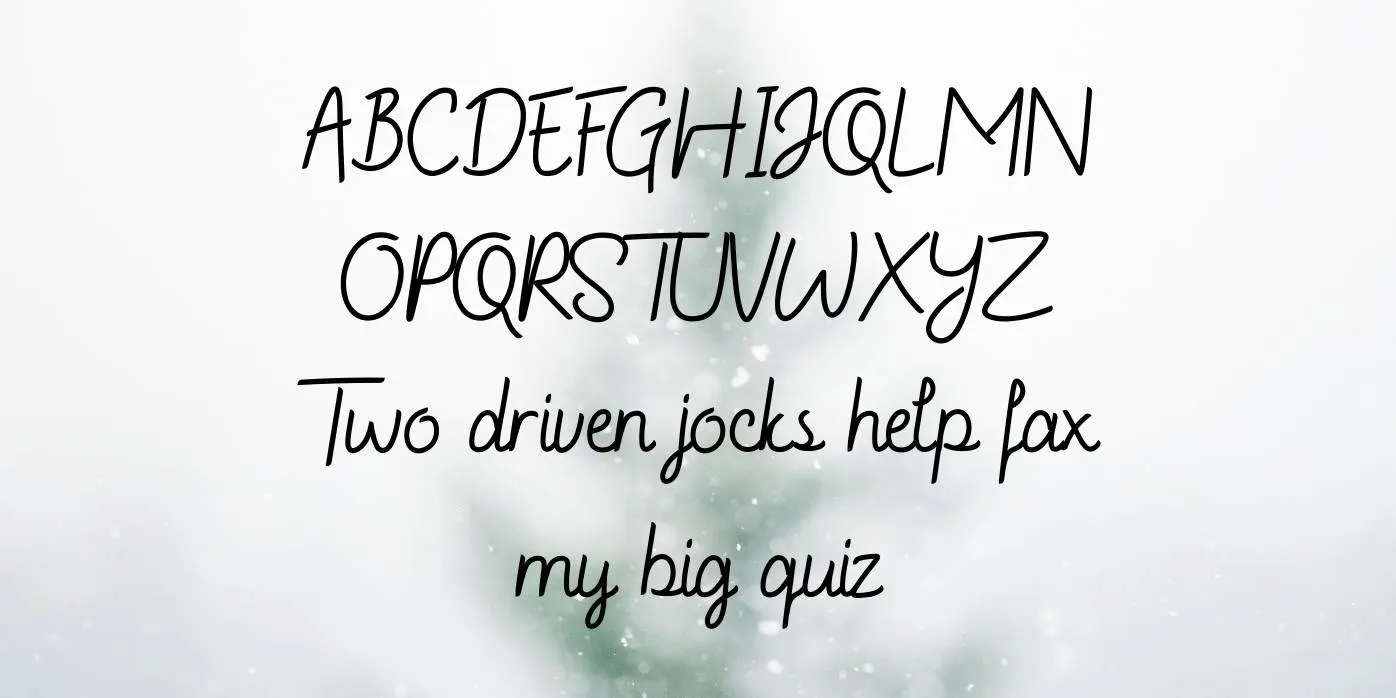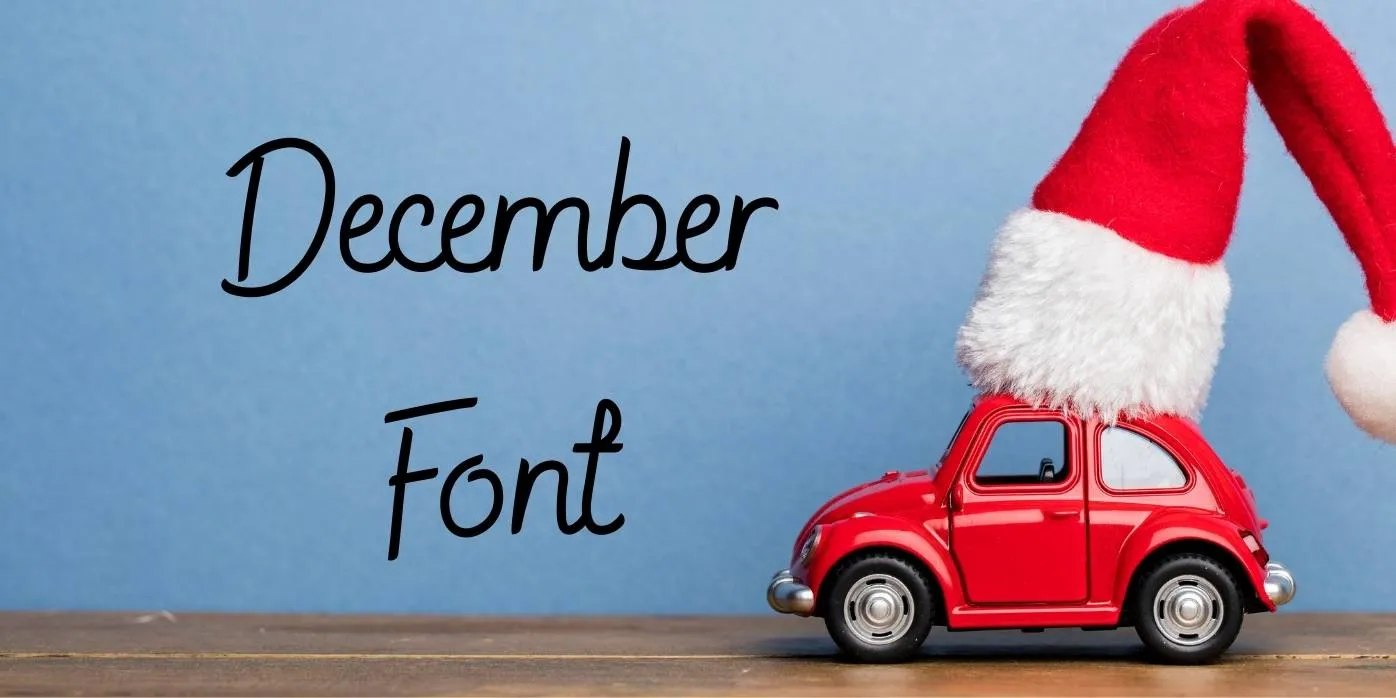
December Font
Today, we are consulting a modern and greater font family named December font.  The classic font was designed by an excellent and intelligent designer known as Adhreza Brahma. This typeface belongs to the Script font family. This tremendous font was developed in a modern way and formate. It has a large height and little shape styles.
Because of the large height and tilt styles this amazing font is very useful and perfect for plenty of designs. You can easily make different Christmas designs, posters, any type of logos, and other different fields. This typeface is available in unique regular styles that increase its performance. You can use it according to your needs all over the world.
This famous and popular Christmas font is impressive in the whole world. You can also use its copy-paste function freely. This font family provides different modern and stylish Glyphs. Also, this amazing typeface has more than 93 Interesting and famous characters.
Its popular characters are symbols, punctuations, icons, and other famous characters. By using its online Tool generator you can make perfect all of your text designs. Braxton Font is one of the similar fonts to this font family. This similar font is the same as this classic typeface.